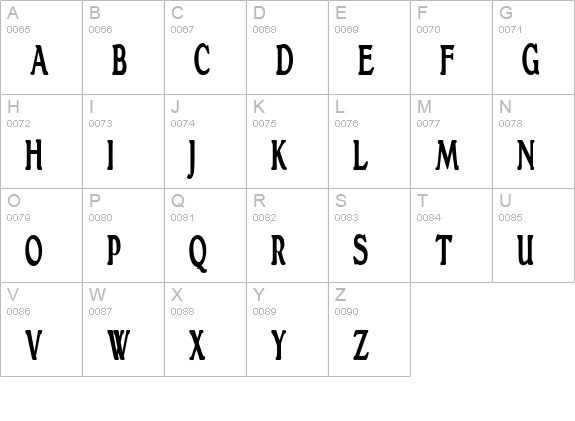
GranthamCondensed Bold Font Details
GranthamCondensed Bold is a strong, high-contrast variant in the GranthamCondensed typeface family \xE2\x80\x94 well suited to headlines, attention-grabbing titles, and strong calls-to-action.
GranthamCondensed Bold is a striking and modern typeface that exudes confidence and sophistication. Its bold weight commands attention and makes a bold statement in any design project. The condensed style of this font adds a touch of elegance and sleekness, making it perfect for headlines, titles, and branding materials. What sets GranthamCondensed Bold apart is not only its powerful presence but also its versatility. Whether you're designing a poster, logo, website, or any other creative project, this font will add a touch of flair and professionalism. Best of all, GranthamCondensed Bold is available for free download at FontsMarket.com. This means you can easily access this high-quality font and use it in your projects without any cost. Don't miss out on the opportunity to elevate your designs with GranthamCondensed Bold - download it now and unleash your creativity!